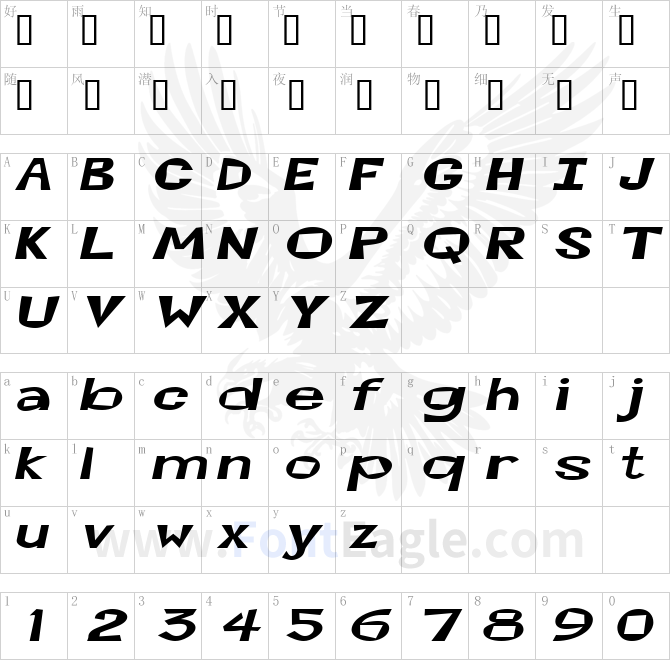
- Font name:CocktailsExtended
- Font Subfamily ID:SWFTE:CocktailsExtended Italic
- Font Full Name:CocktailsExtended Italic
- Postscript:CocktailsExtendedItalicSWFTE